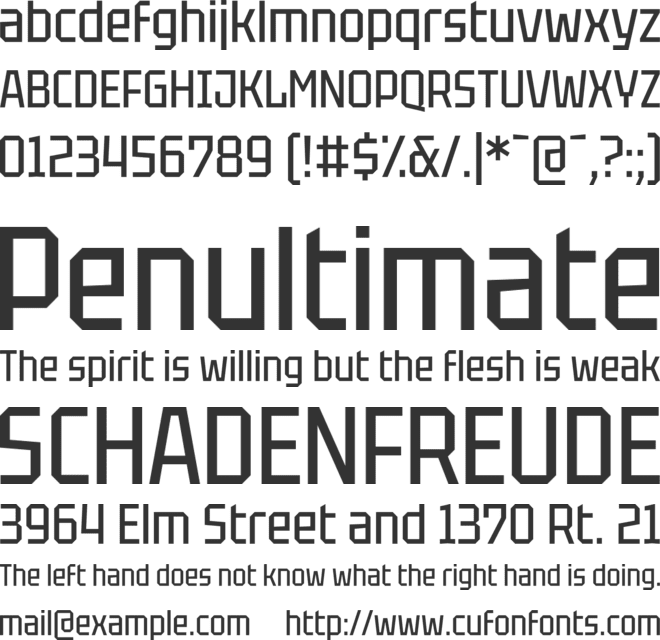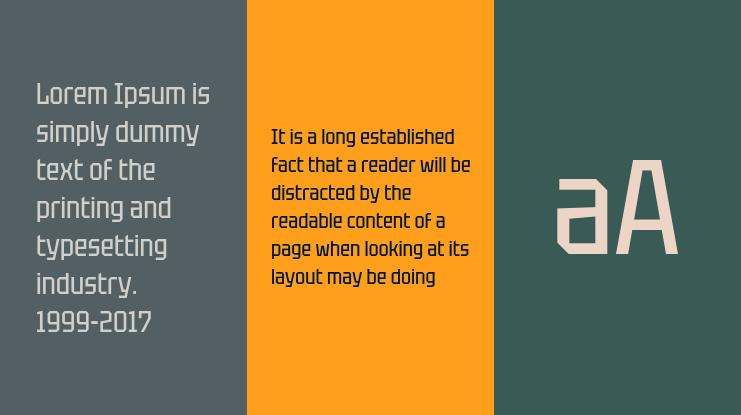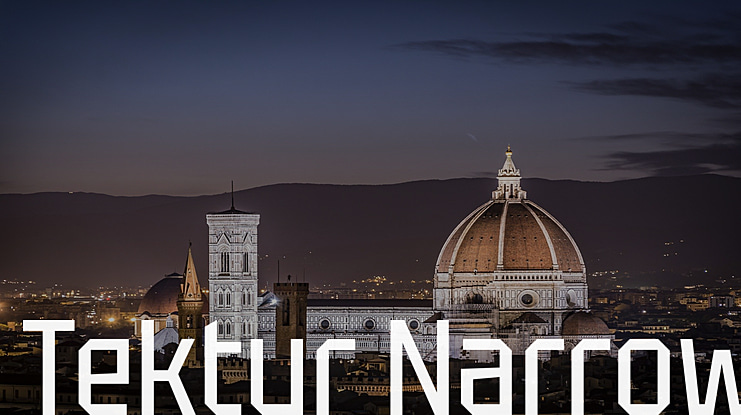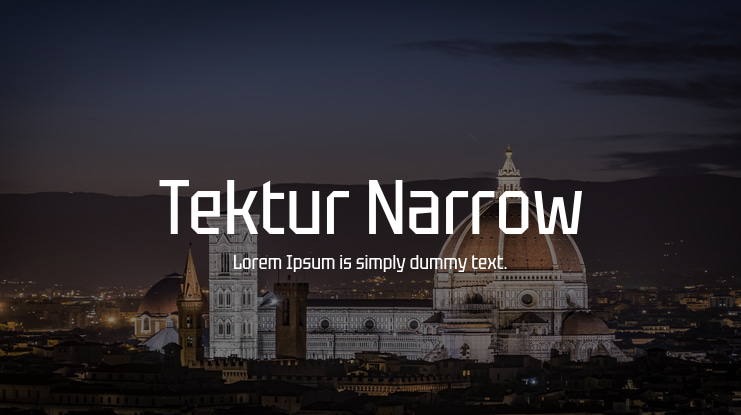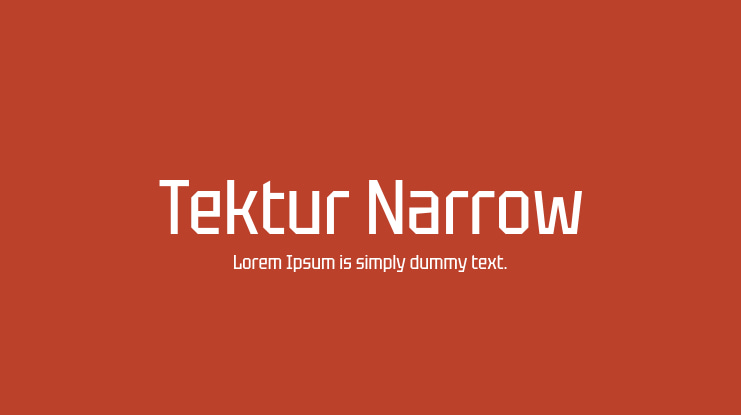
Tektur Narrow Font Family
Adam Jagosz
Tektur is a constructed typeface featuring octagonal outlines and rectangular counters. This rudimentary principle is applied where rounds are typically found, but most of the diagonals are left intact which helps preserve good readability and a familiar stance. The x-height is set high and ascenders are aligned with the cap height allowing for compact typesetting.
The Tektur static font family comprises three widths (Tight, Narrow, normal) in 6 weights (Regular, Medium, SemiBold, Bold, ExtraBold, Black). The variable version has the following axes: * Width, ranging from 75 to 100, * Weight, ranging from 400 to 900.